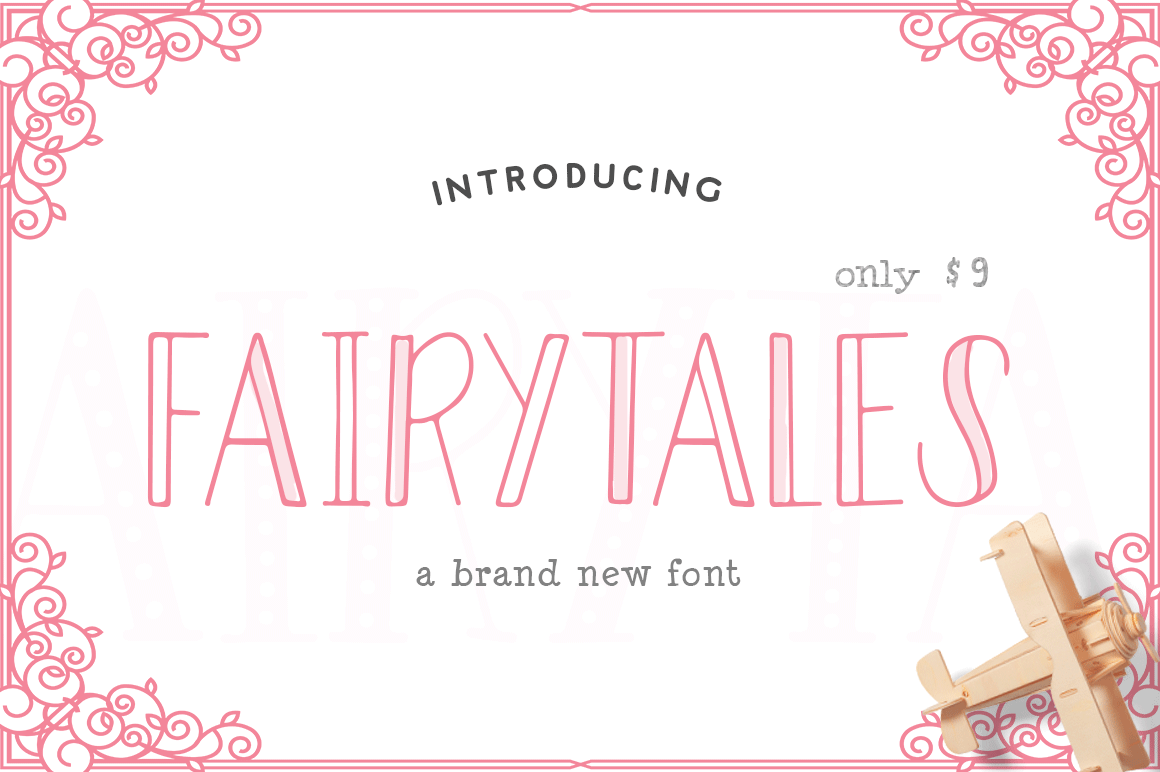
Fairytales Font (Only $9)
Introducing Fairytales a beautiful and brand new hollow style elegant font from Salt & Pepper Designs. This super cute font is available for only $9! 100% accessible to all, without the requirement for additional design software